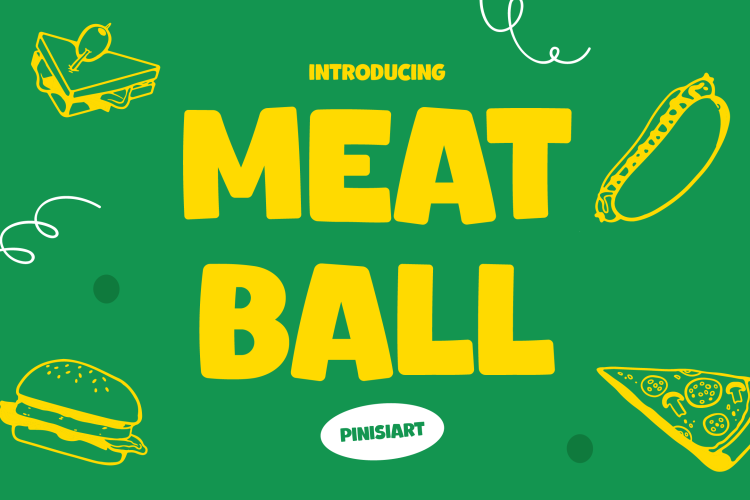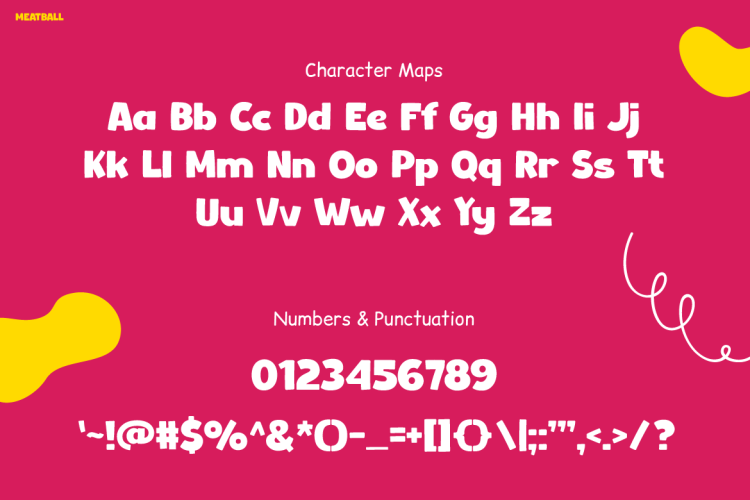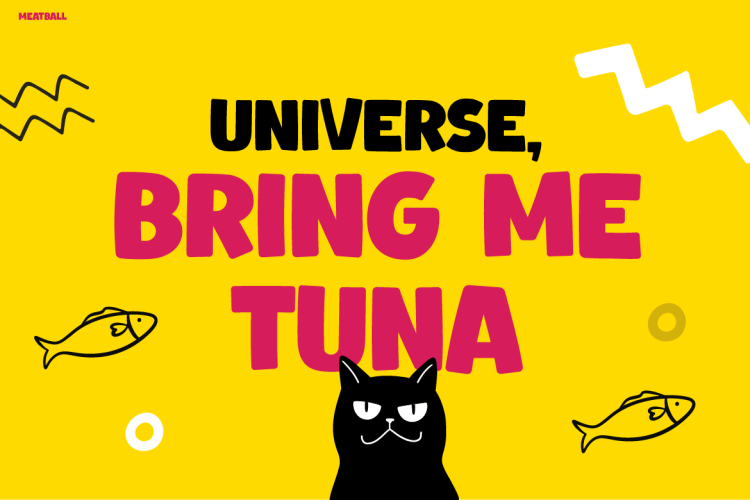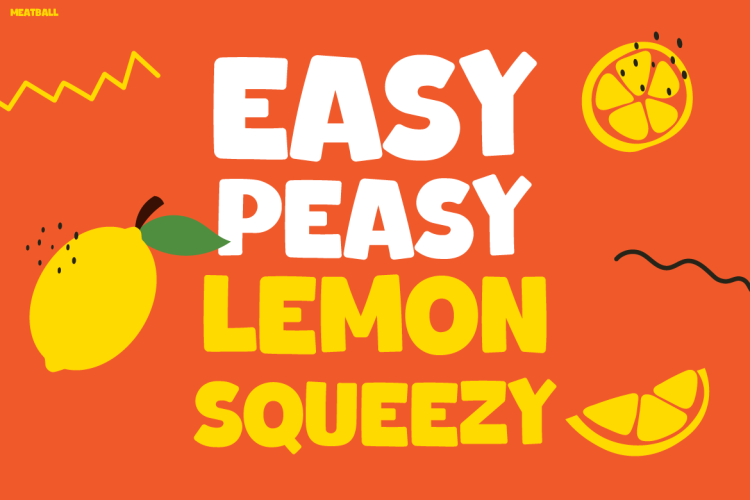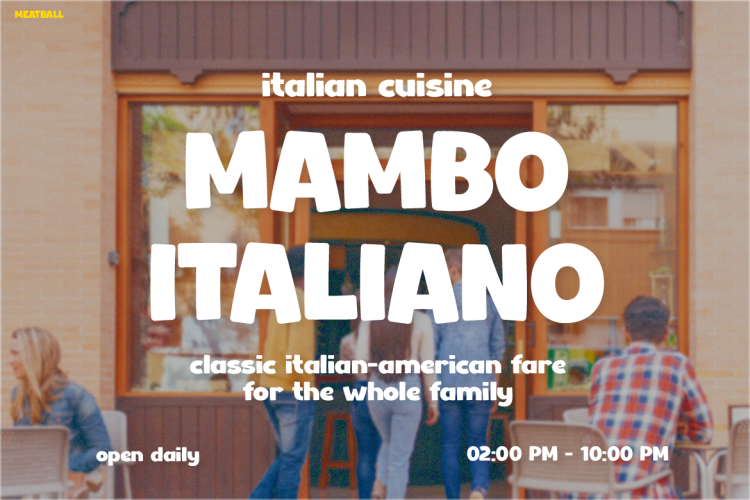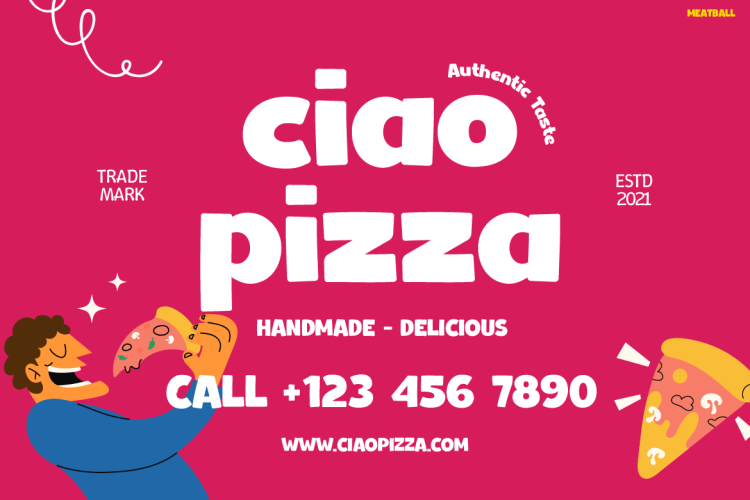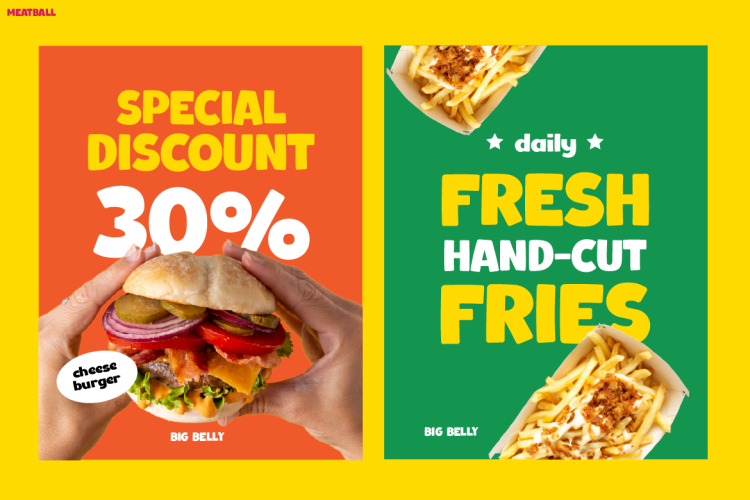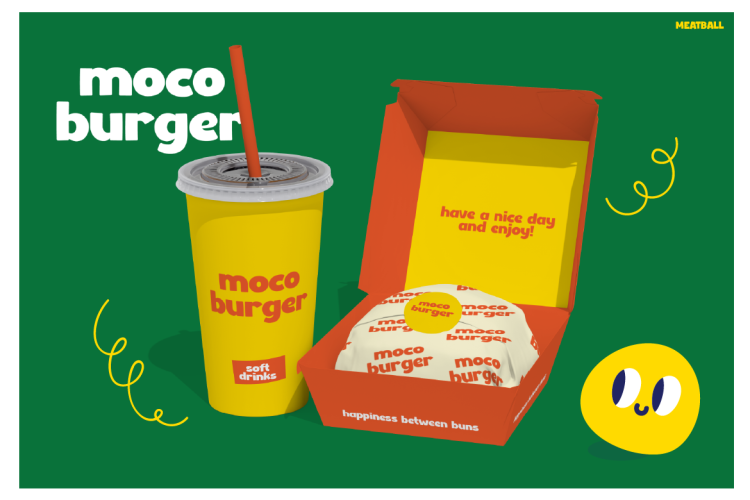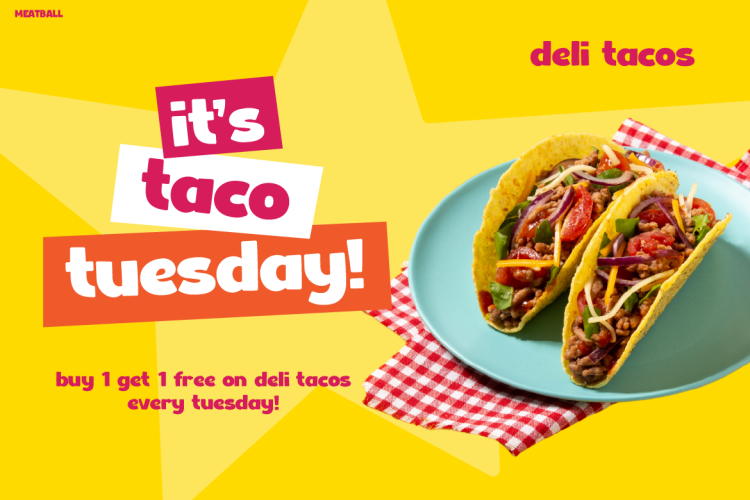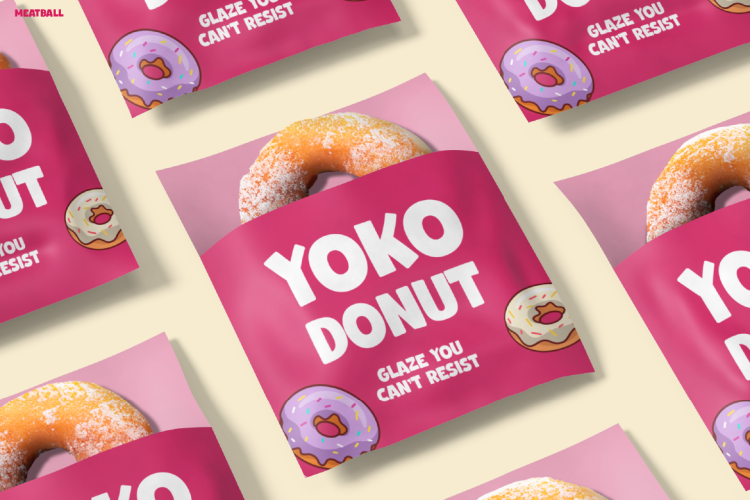
Kids Font Meatball โ Playful Flavor in Every Letter!
Kids Font Meatball is a bright, bold, and fun display font that instantly captures attention. Its chunky letters and smooth rounded edges give every word a joyful, welcoming look. Moreover, the clean and curvy lines bring out a sense of warmth and friendliness, making this font perfect for projects that aim to feel cheerful and approachable. Each character is designed with a delightful rhythm that adds energy and excitement to your designs. As a result, your text not only stands out visually but also feels full of personality and life.
In addition, the fontโs playful structure and soft geometry make it versatile for both digital and print media. Whether youโre creating a logo, poster, or packaging, it adds a modern yet childlike charm thatโs hard to ignore. Its thick strokes maintain strong readability even at smaller sizes, which helps your message stay clear and impactful in any setting.
Who Itโs Perfect For
Kids Font Meatball is ideal for graphic designers, food brands, educators, and creative business owners who want to inject happiness into their visuals. It works beautifully for kidsโ snack packaging, fast food menus, toy branding, birthday invitations, classroom posters, and playful marketing campaigns. Furthermore, the fontโs round shapes and clean balance create a soft visual tone that appeals to both children and families. Also, content creators can use it to design engaging social media posts that instantly catch the viewerโs eye. Because of its energetic vibe, itโs the perfect choice for any project that celebrates joy, color, and imagination.
Add Some Flavor to Your Design!
Bring life and flavor to your next design with Kids Font Meatball. Its friendly curves and bold weight make your message pop effortlessly. Also, the lively aesthetic adds charm and positivity to every project, turning ordinary layouts into something memorable. So, if you want your brand to look fun, inviting, and full of personality, this is the font you need. Download Kids Font Meatball today and give your designs that deliciously playful touch!